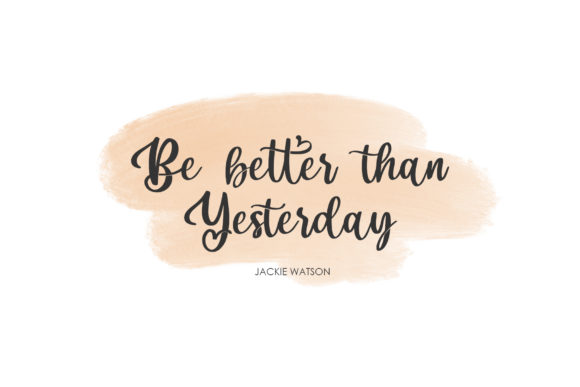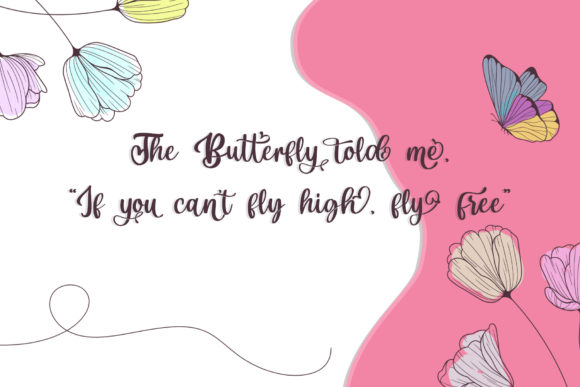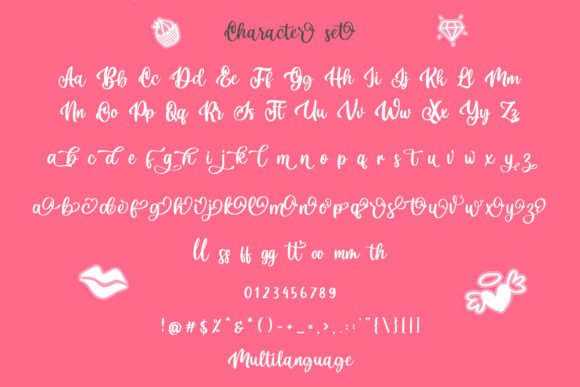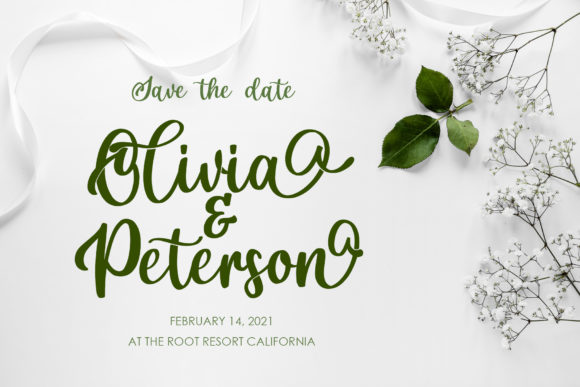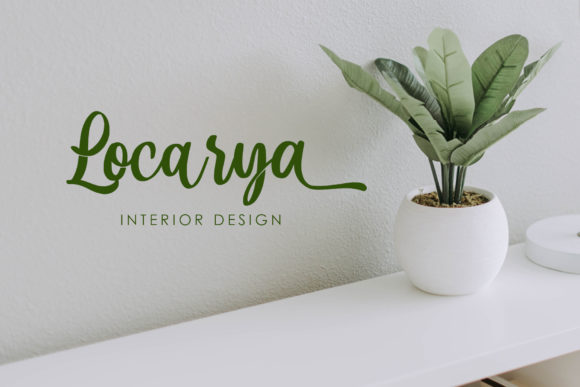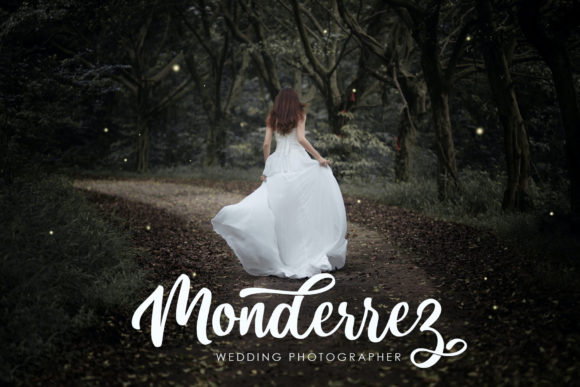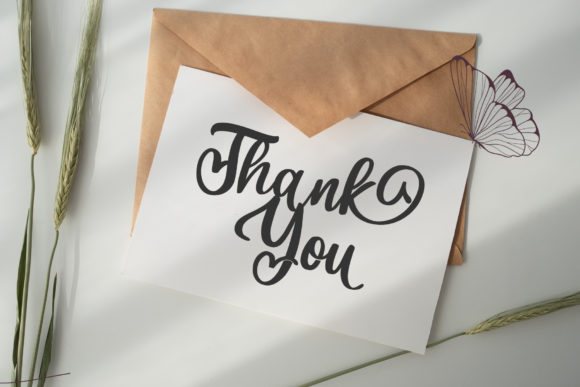
Dellicia Font
About Dellicia Font
Dellicia is a fashionable and romantic script font that will bring a touch of elegance and charm to your projects. With its stylish and flowing characters, this font exudes a sense of romance and sophistication.
One of the notable features of Dellicia is its PUA encoding, which allows easy access to a wide range of glyphs and swashes. This means you can effortlessly incorporate decorative elements and flourishes into your designs, adding a personalized and unique touch.
Whether you’re working on a logo, wedding invitations, branding materials, social media posts, or any other creative project, Dellicia will elevate your designs and make them stand out.
In logo design, Dellicia adds a touch of elegance and romance, making your brand appear refined and memorable. Its fashionable and flowing script creates a harmonious and graceful visual impression, capturing attention and leaving a lasting impact.
For wedding invitations and other romantic-themed projects, Dellicia’s romantic and delicate style perfectly complements the celebratory atmosphere. The stylish curves and swashes evoke a sense of joy and love, creating an enchanting invitation that sets the tone for a special occasion.
In branding materials, Dellicia adds a touch of sophistication and charm. Its fashionable and romantic nature creates a memorable and visually appealing representation of your brand identity, leaving a positive and lasting impression on your audience.
Social media posts designed with Dellicia become eye-catching and engaging. The elegant and flowing script adds a touch of glamour to your messages, making them more memorable and shareable.
No matter the project, Dellicia will bring a joyful and romantic touch to your designs. Its fashionable and stylish appearance, coupled with the ability to access a variety of glyphs and swashes, allows for endless creative possibilities.
In conclusion, Dellicia is a fashionable and romantic script font that adds elegance and charm to your projects. With its PUA encoding, you can easily access a wide range of glyphs and swashes to enhance your creativity. From logos to wedding invitations, branding to social media posts, Dellicia will infuse your designs with a joyful and romantic vibe, making them visually appealing and memorable.